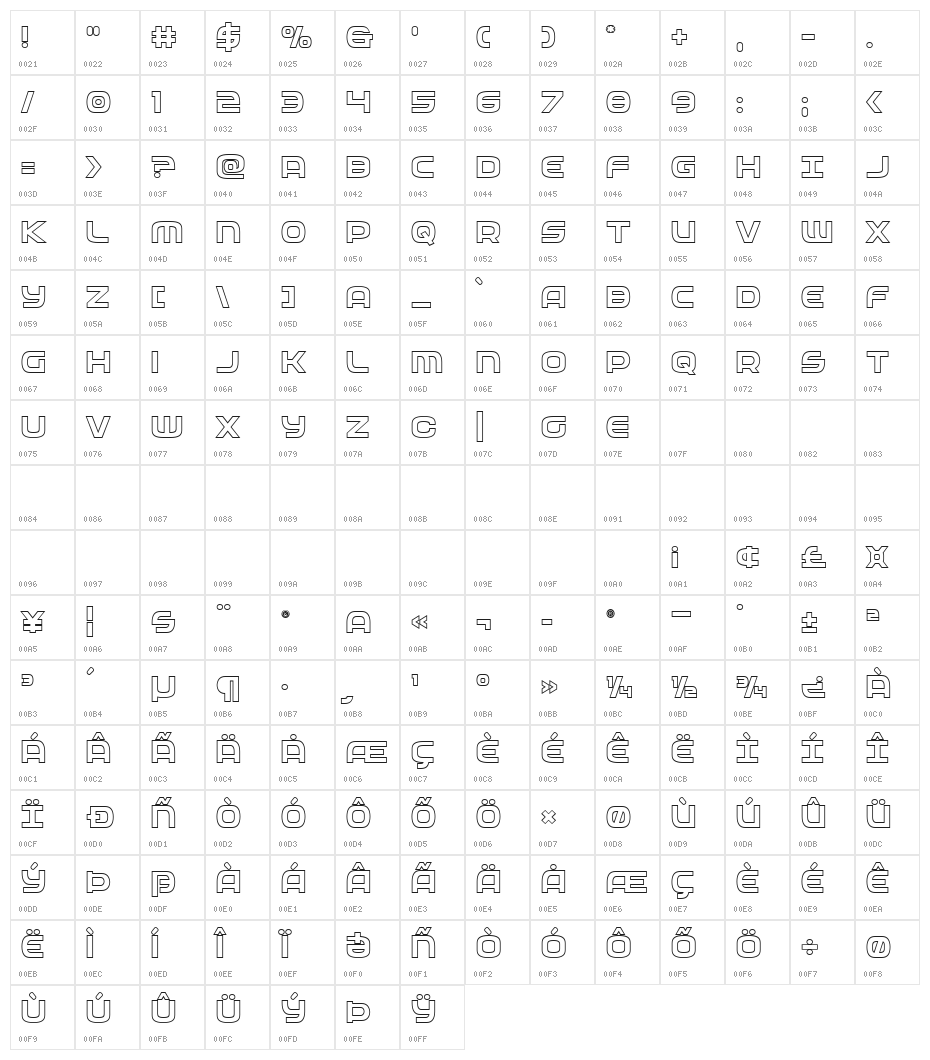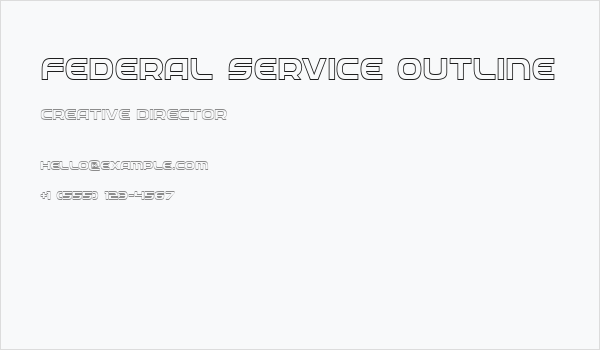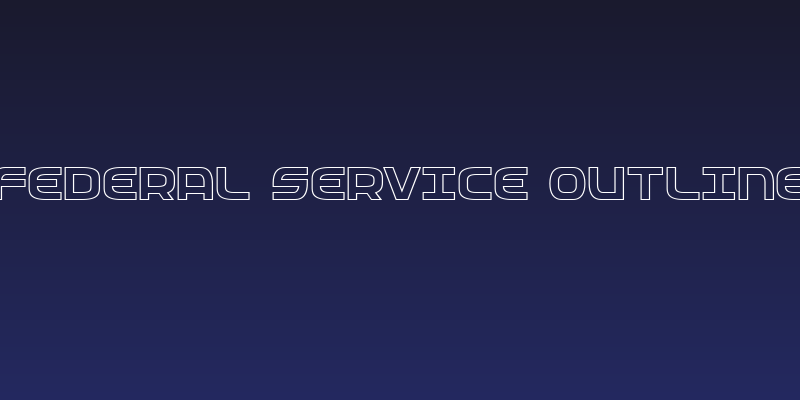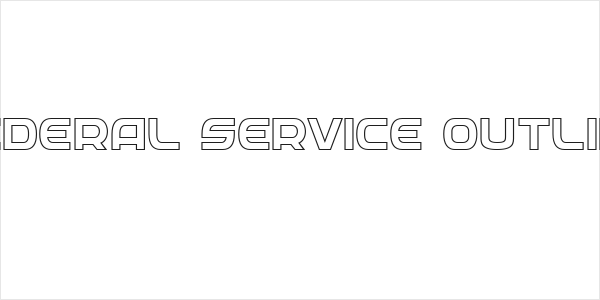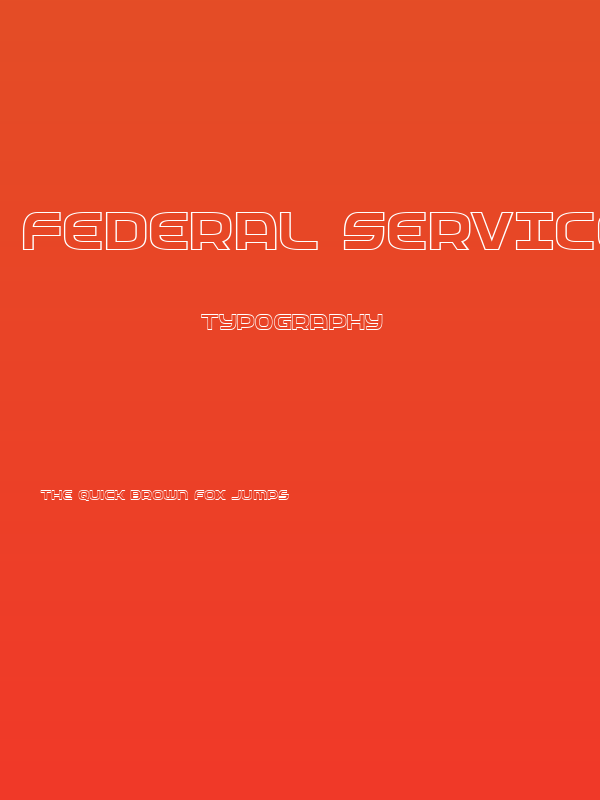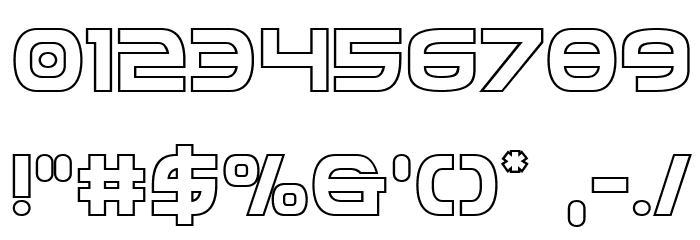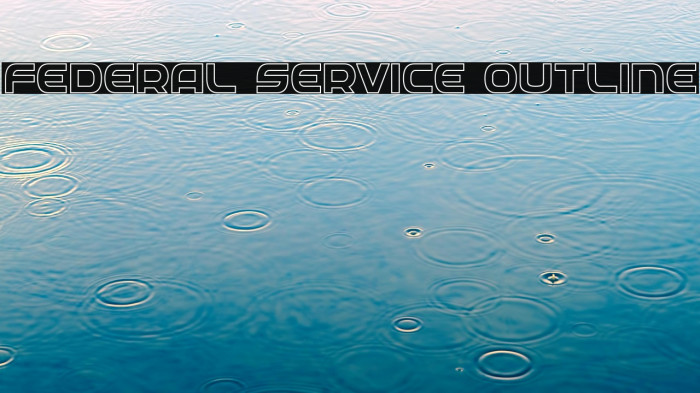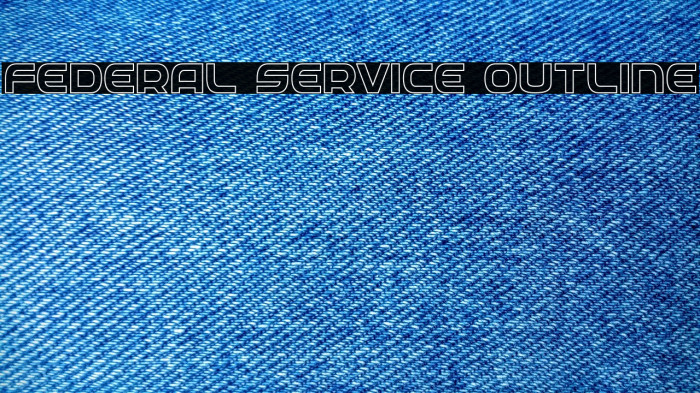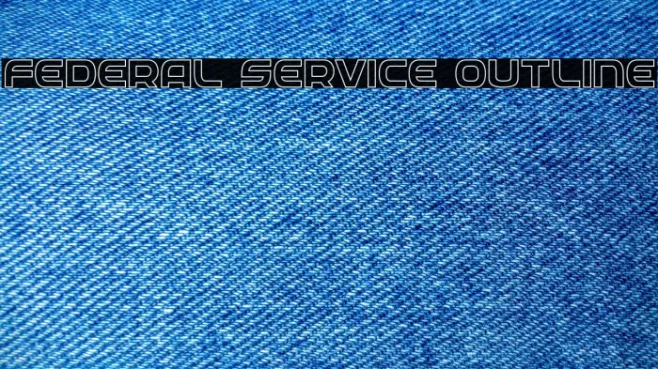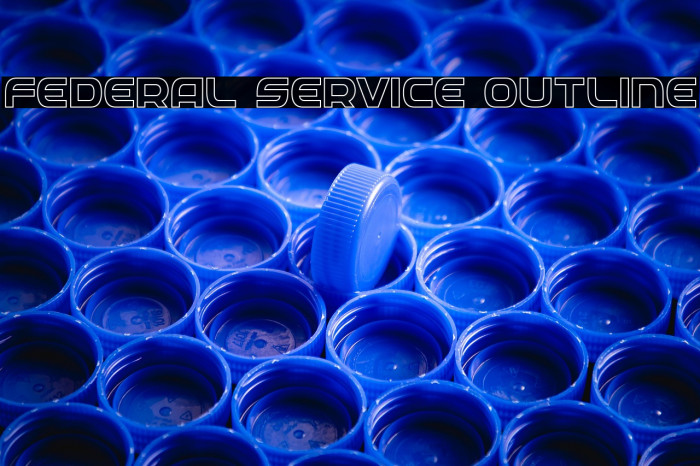
Federal Service Outline Font
Federal Service Outline Description
This font features a bold, geometric outline style that emphasizes a modern and futuristic aesthetic. The characters are constructed with clean, straight lines and sharp angles, giving them a structured and technical appearance. The uppercase and lowercase letters maintain a consistent height, contributing to a uniform look across the typeface. The numerals and special characters are designed to match the overall style, ensuring cohesion throughout. The outline design adds a unique dimension, making it stand out for creative projects.
| Proposed Projects | Ideal for technology branding, futuristic posters, video game titles, and sci-fi themed designs. |